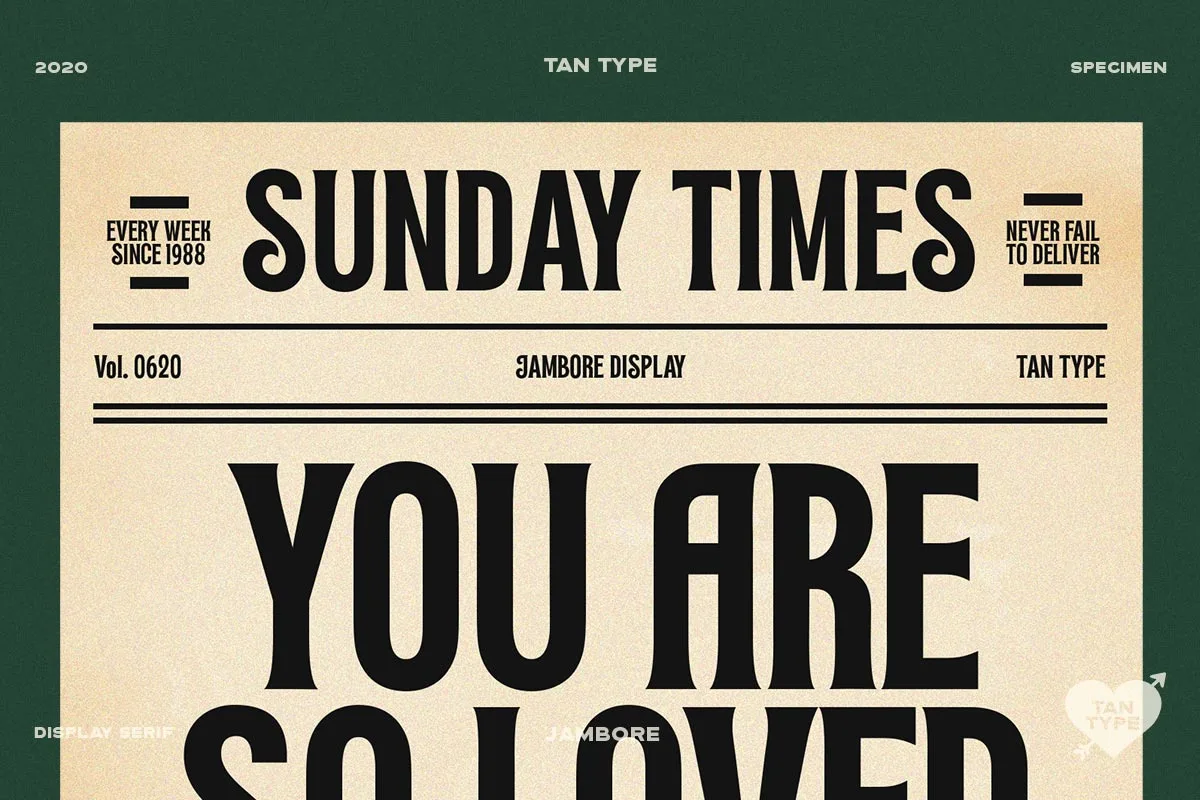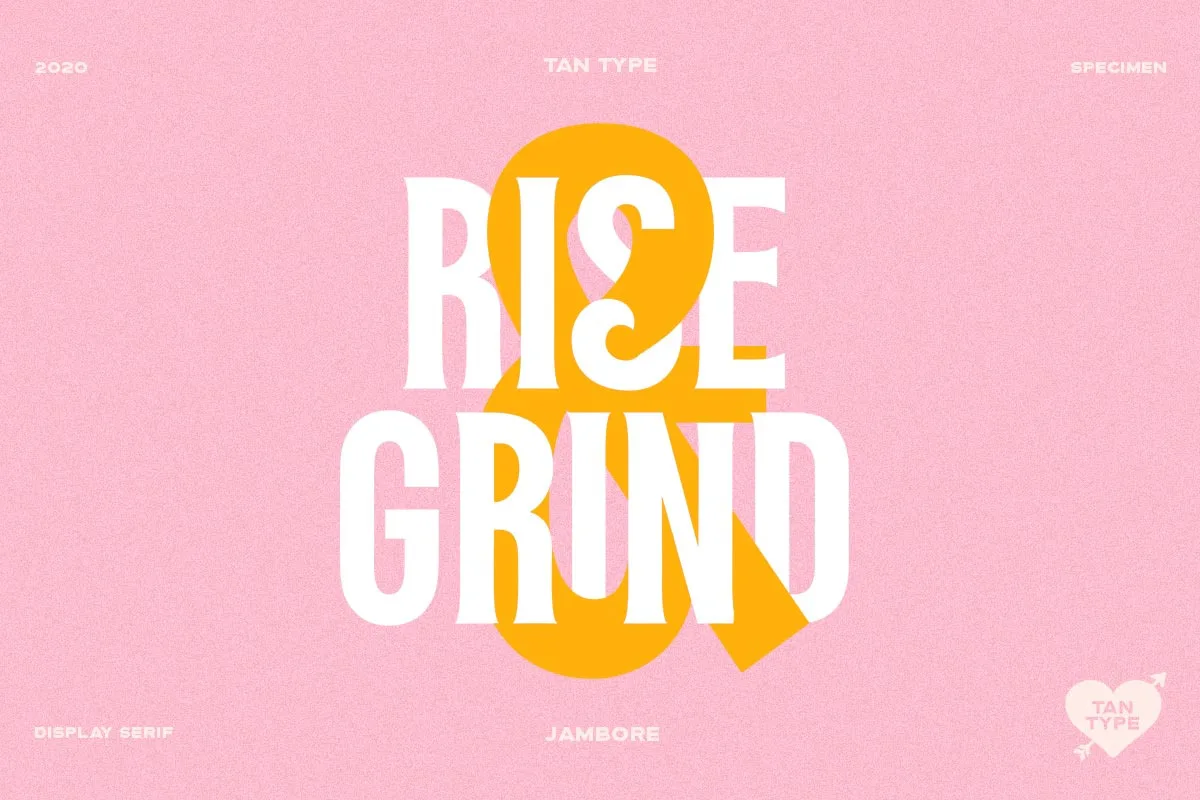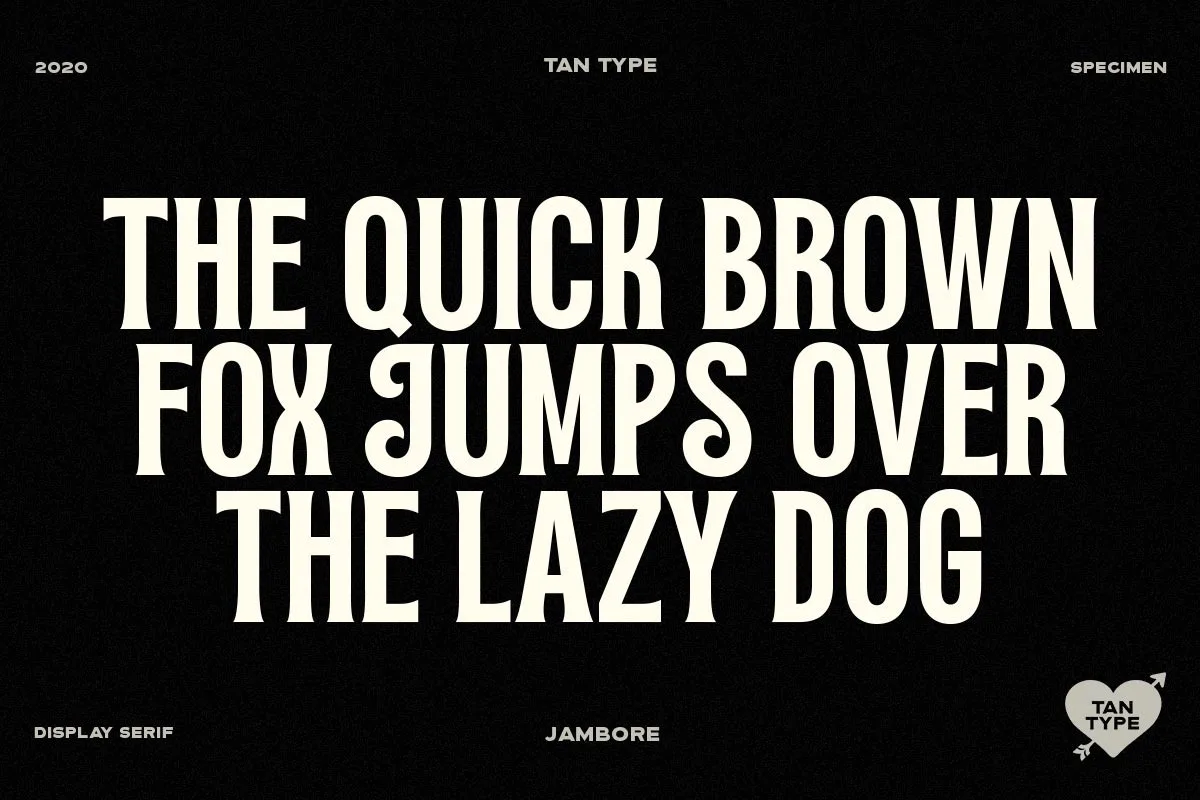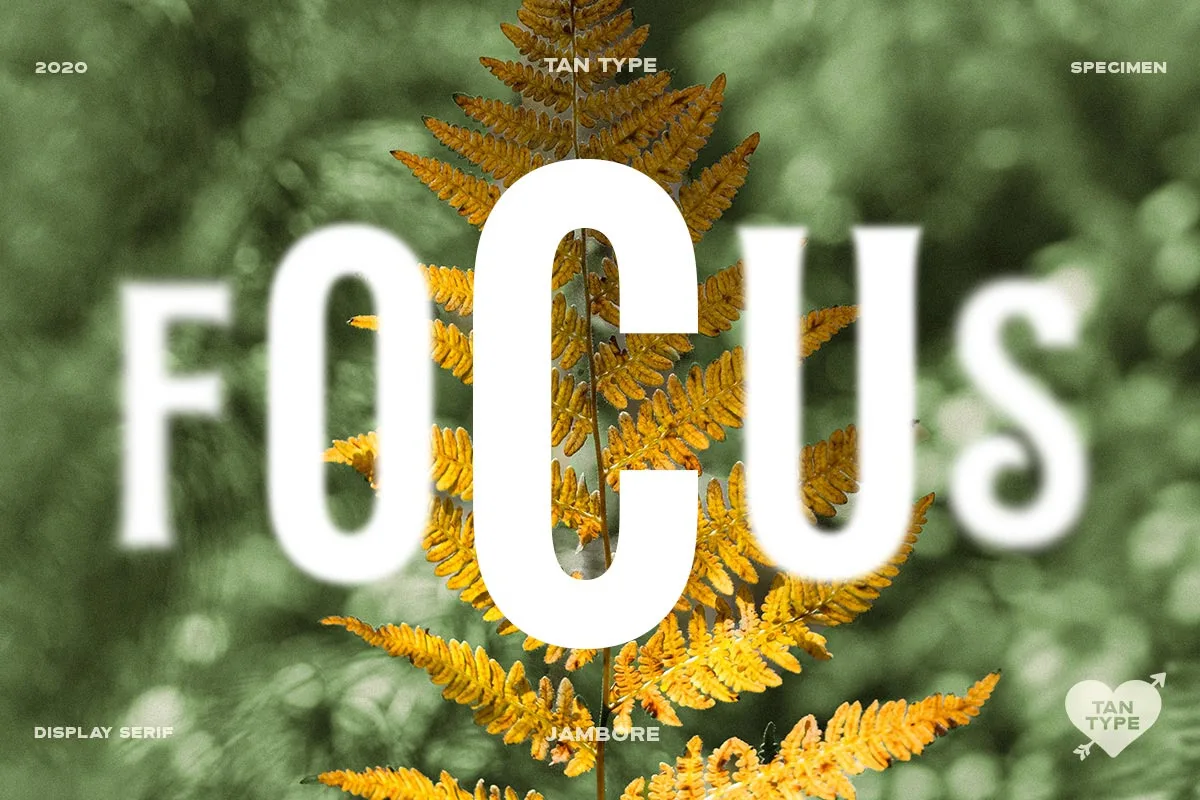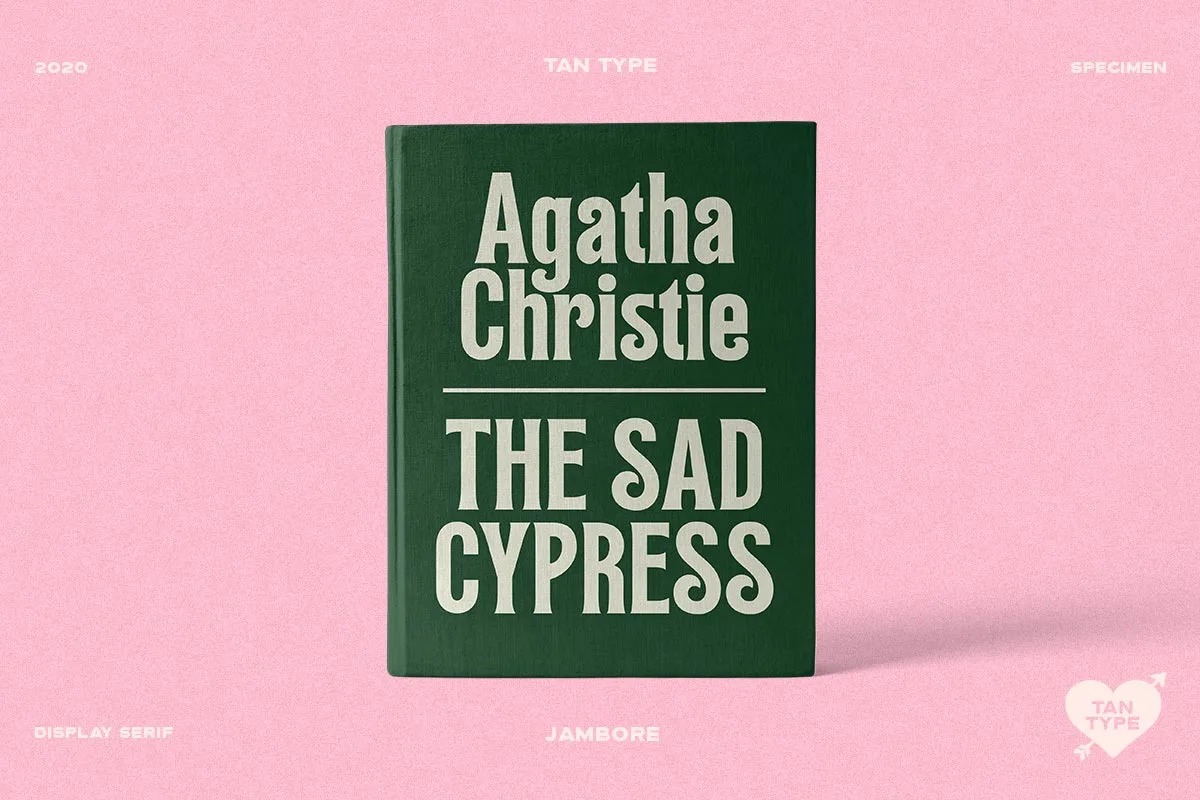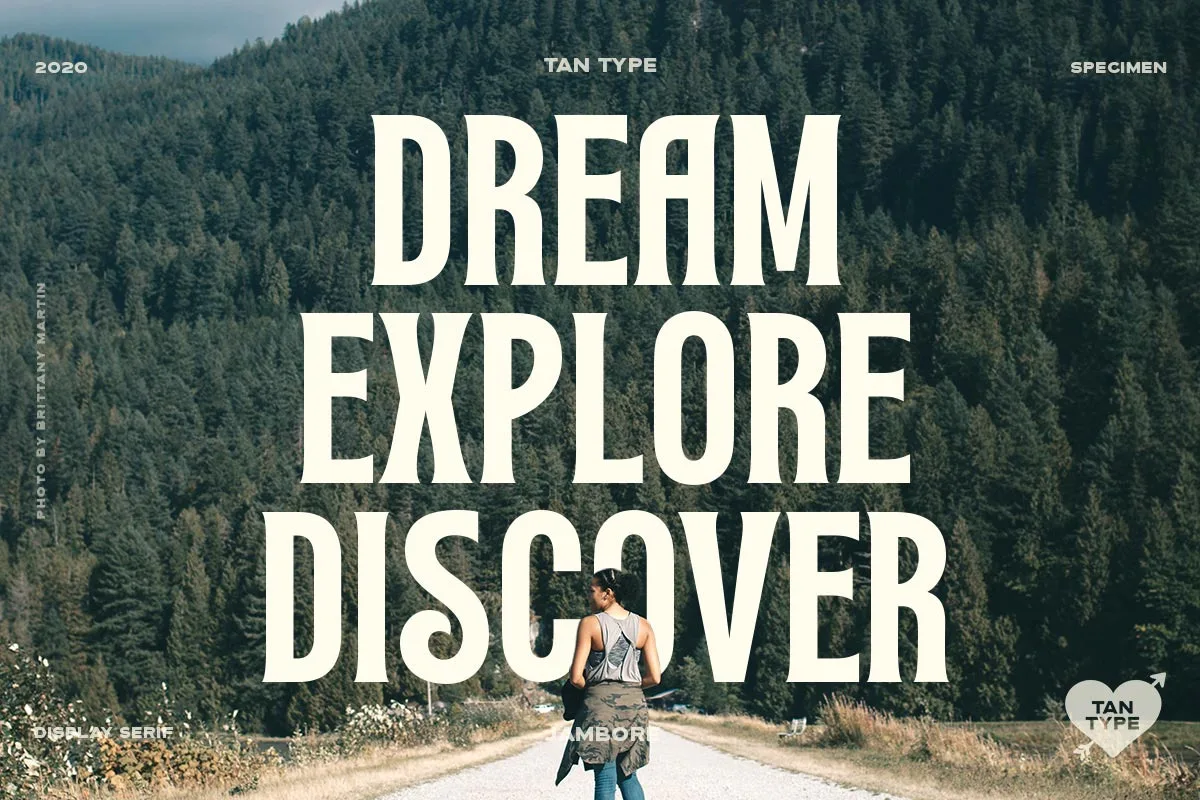
TAN Jambore by TanType is a bold display serif with a retro leaning. Choose it when the words need to carry a poster, cover, or brand mark; give smaller explanatory text a simpler companion font. The contrast between a strong headline and restrained body copy lets Jambore's shapes stay the focus.
Before choosing it for a name or logo, preview the exact letters you need. Check the width of capitals, the space between distinctive letter pairs, and the result on both light and dark backgrounds. A sample word that looks good in a product image may behave differently with your project's wording.
- Designer: TanType.
- Good fit: large display text; check your intended small-size use in the seller's live preview.